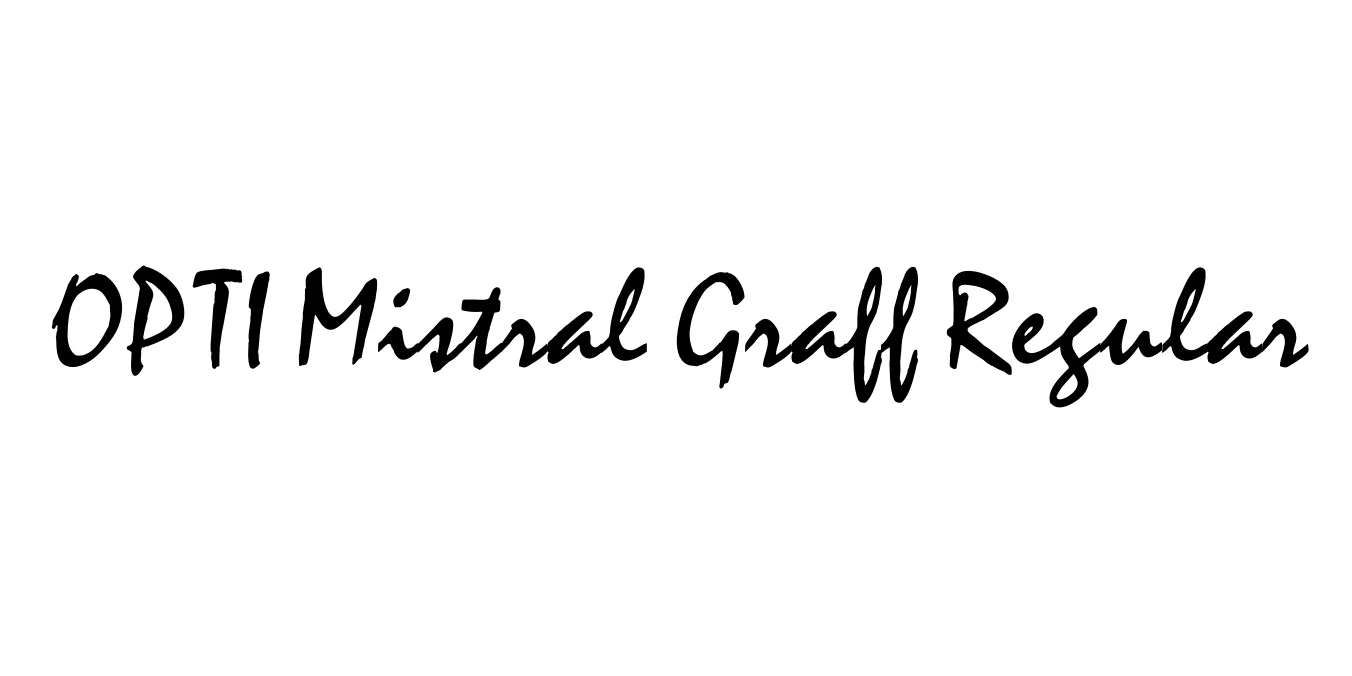
OPTI Mistral Graff Regular
Designed by Roger Excoffon / Castcraft Software
| Category | Script / Handwriting |
| Designer | Roger Excoffon / Castcraft Software |
| Similar Fonts | Mistral, Brush Script, Kaufmann, Zapfino |
OPTI Mistral Graff Regular is a digital revival and stylized variation of the iconic Mistral typeface, which was originally designed by the legendary French graphic artist Roger Excoffon in 1953. This specific iteration, produced by Castcraft Software as part of their OPTI library, emphasizes the rhythmic and energetic brushstrokes that define the font's character. The design mimics spontaneous handwriting with a felt-tip marker or a paintbrush, offering a sense of motion and personal expression that is rarely captured in digital typography.
The font is notable for its lack of a rigid baseline, allowing the characters to flow together in a way that feels organic and unforced. OPTI Mistral Graff Regular serves as a bridge between classic mid-century advertising script and modern street-style graffiti aesthetics. It is widely used in projects that require a touch of informal elegance, vintage flair, or rebellious energy, making it a versatile tool for designers aiming to break away from sterile, geometric typefaces.
OPTI Mistral Graff Regular Best Uses
Creating unique brand identities for boutique shops and creative studios.
Eye-catching headings for Instagram posts and storytelling.
Dynamic typography for music events and art gallery openings.
Catchy, informal slogans that require a personal human touch.